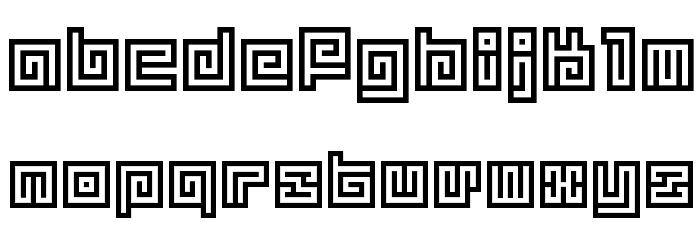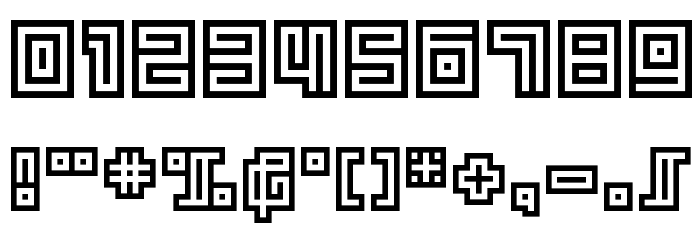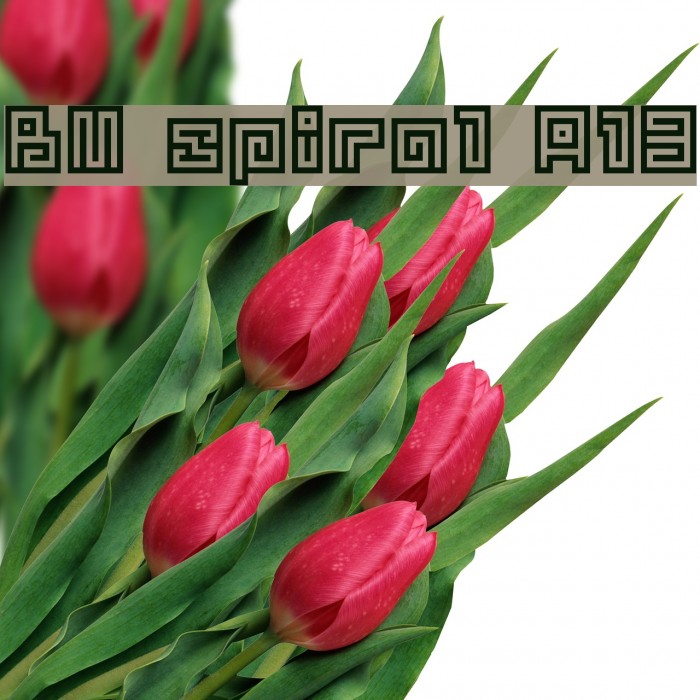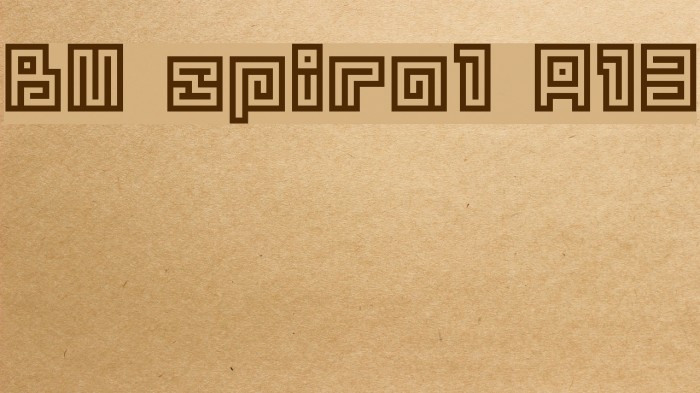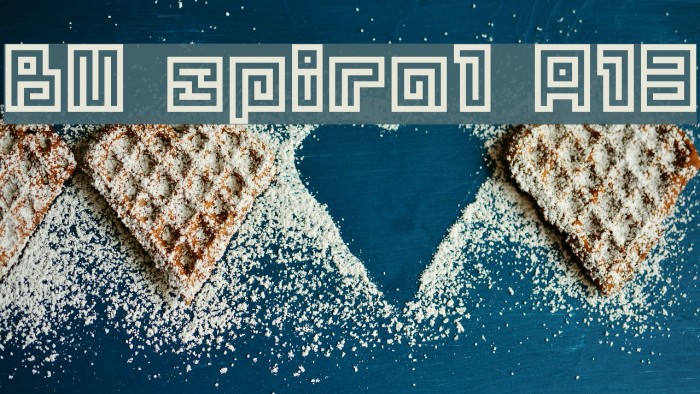
BM spiral A13 Font
This font features a bold, geometric design with a distinct maze-like pattern. Each character is constructed with thick, uniform lines that create a sense of depth and complexity. The uppercase and lowercase letters maintain a consistent style, with sharp angles and a blocky appearance. Numbers and special characters follow the same intricate design, making the font highly decorative. The overall look is modern and futuristic, suitable for projects that require a unique and eye-catching typeface.
A bold, geometric font with a maze-like, futuristic design.
- Font: BM spiral A13
- Proposed Projects: Ideal for video game graphics, sci-fi themed posters, or branding that requires a modern and distinctive look.
- Overall Style: Modern, Futuristic